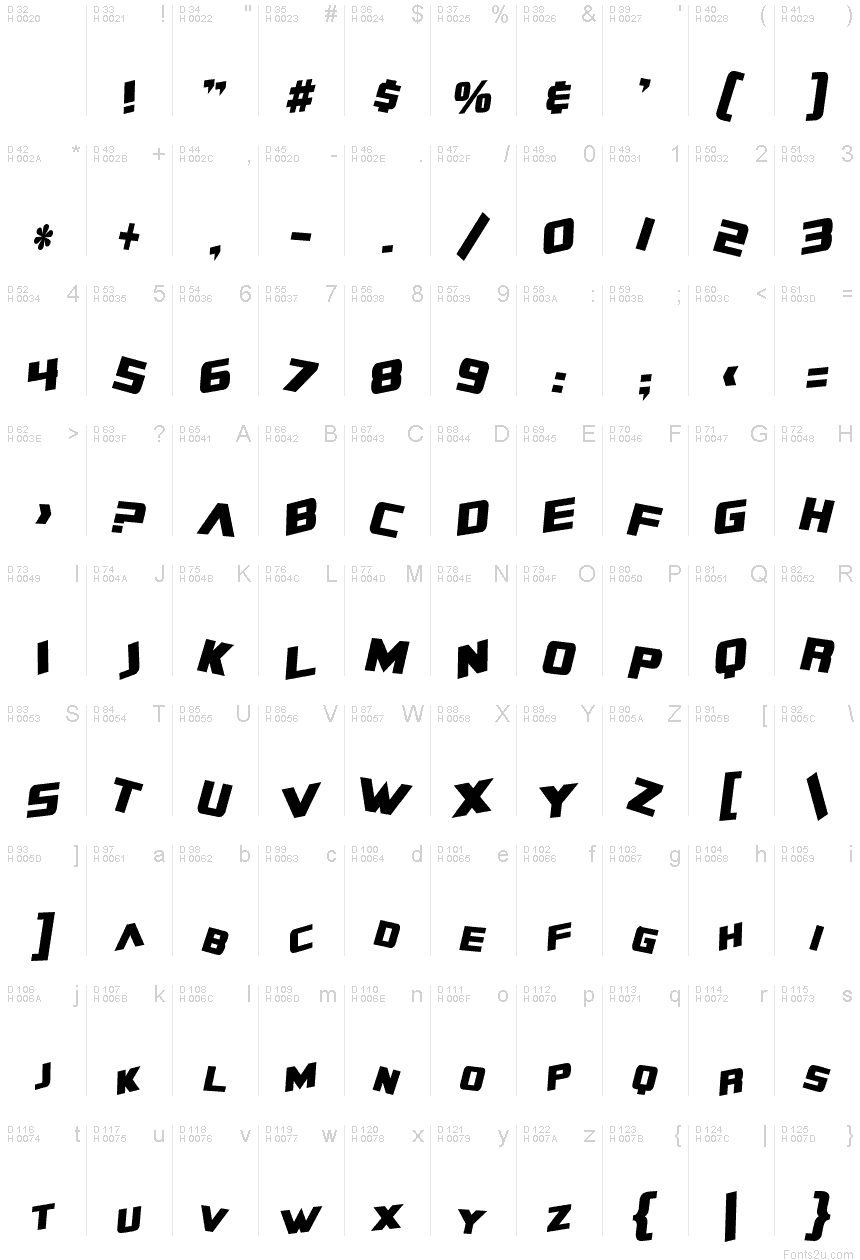
SF Zero Gravity Condensed Bold Italic
SF Zero Gravity Condensed Bold Italic, by ShyFoundry, is a free sci-fi caps display font with sharp angles, hard cuts, and a forward-thrust slant that feels pulled from arcade logos and space-action titles. The letters are compact and blocky, but the zigzag joins and sheared corners keep them moving, giving the whole font a tense, zero-gravity energy instead of a plain condensed bold look.
It works naturally in posters, game branding, album sleeves, title cards, and tech event graphics where short words need a fast, engineered attitude. As a free font, it also makes sense for cover lines, monograms, and punchy headers, especially when you want the caps to feel compressed, aggressive, and slightly futuristic.